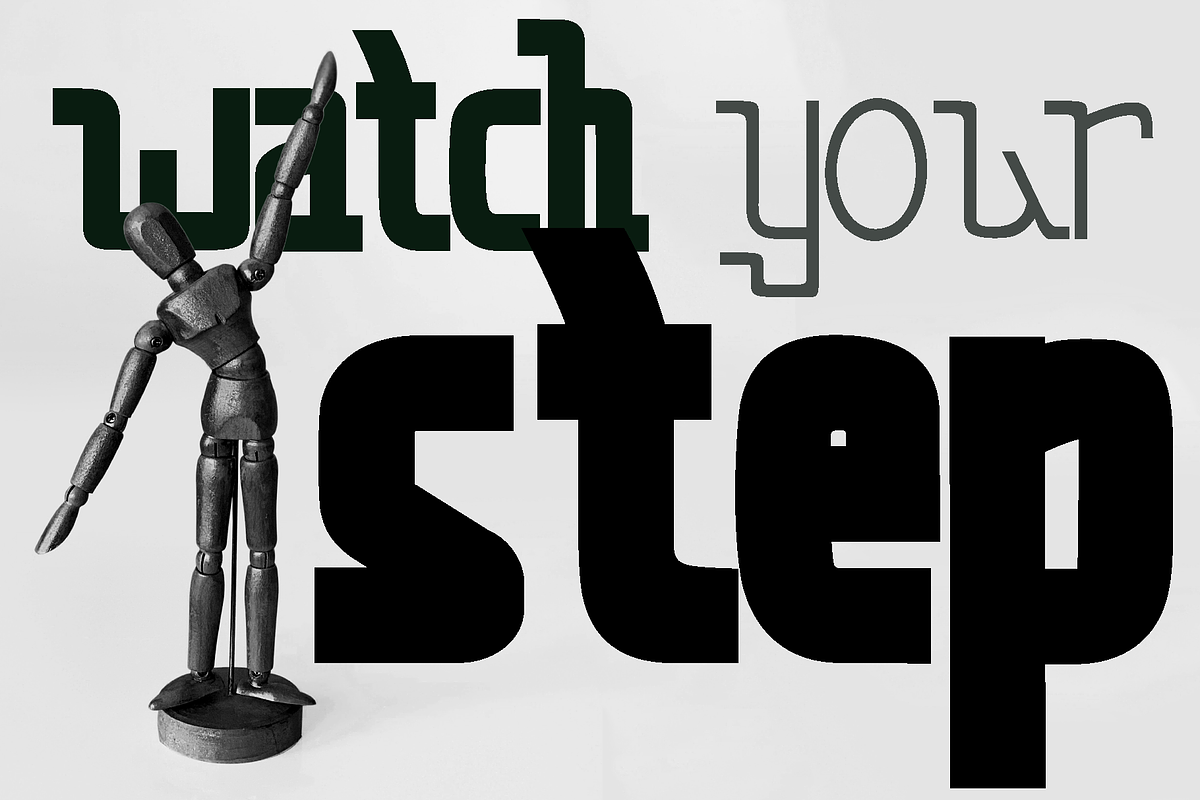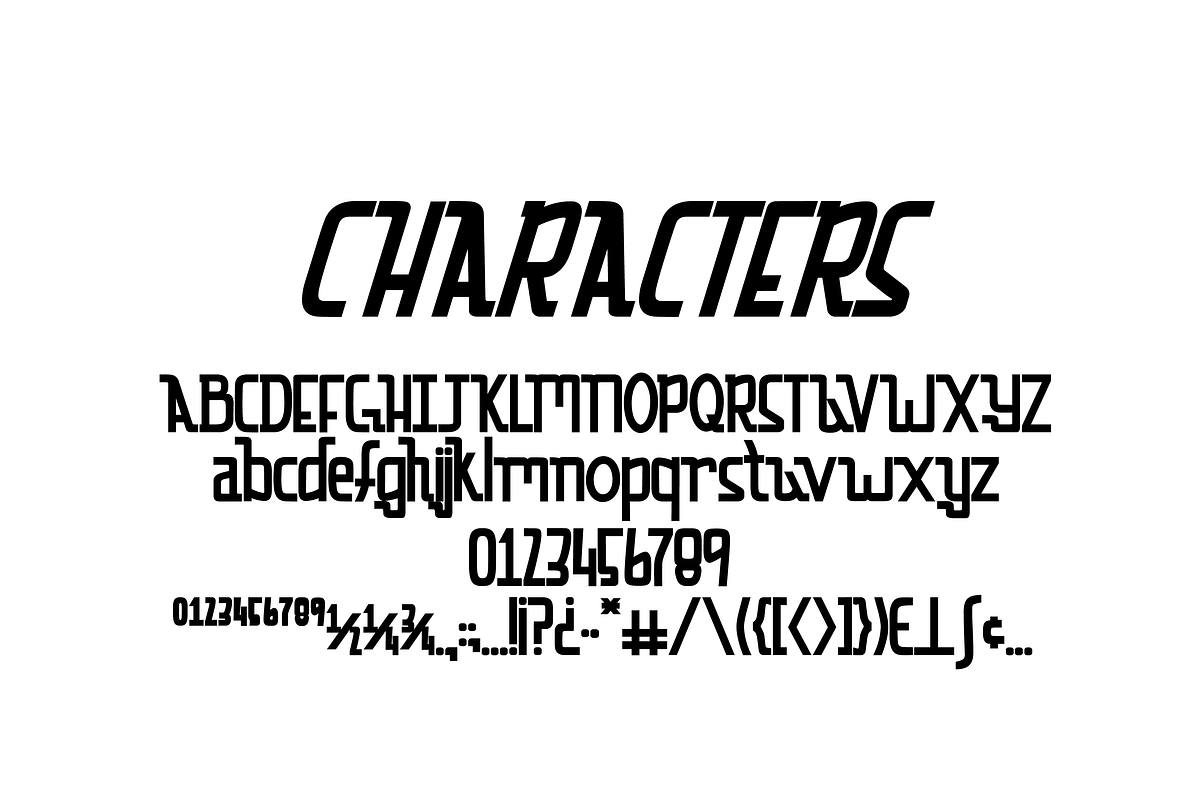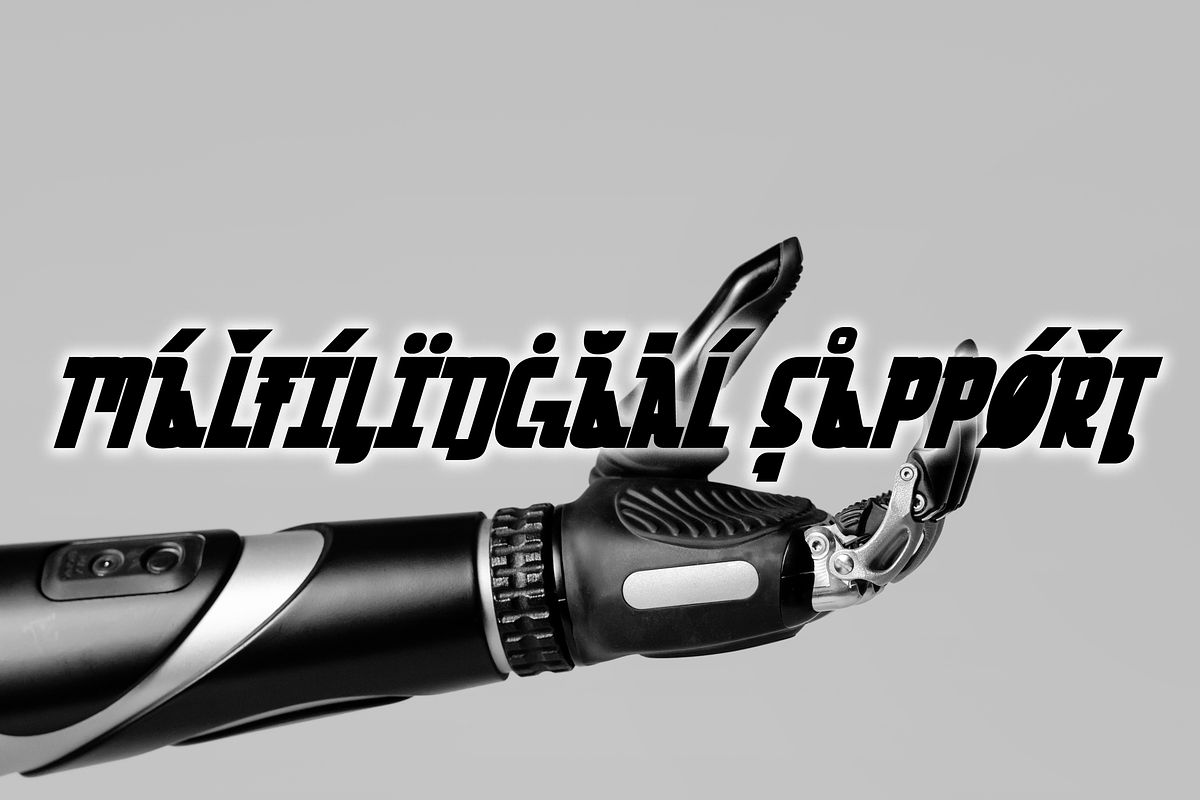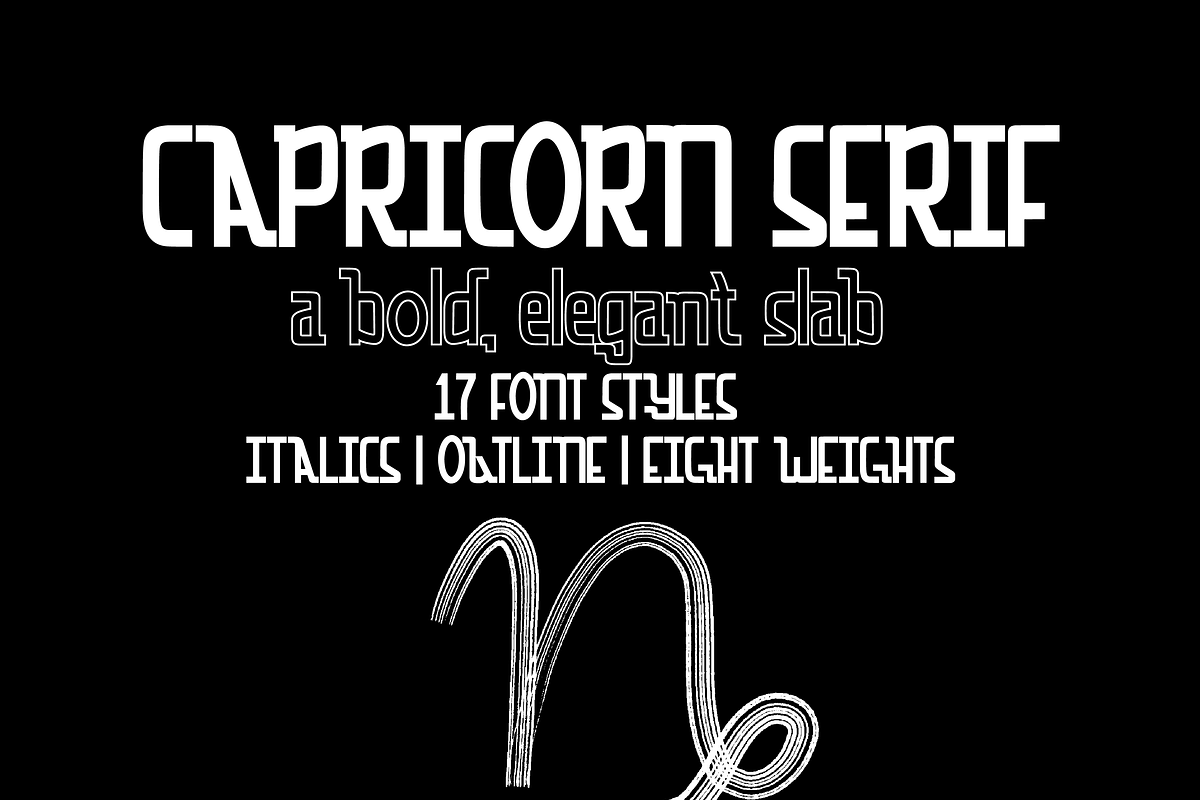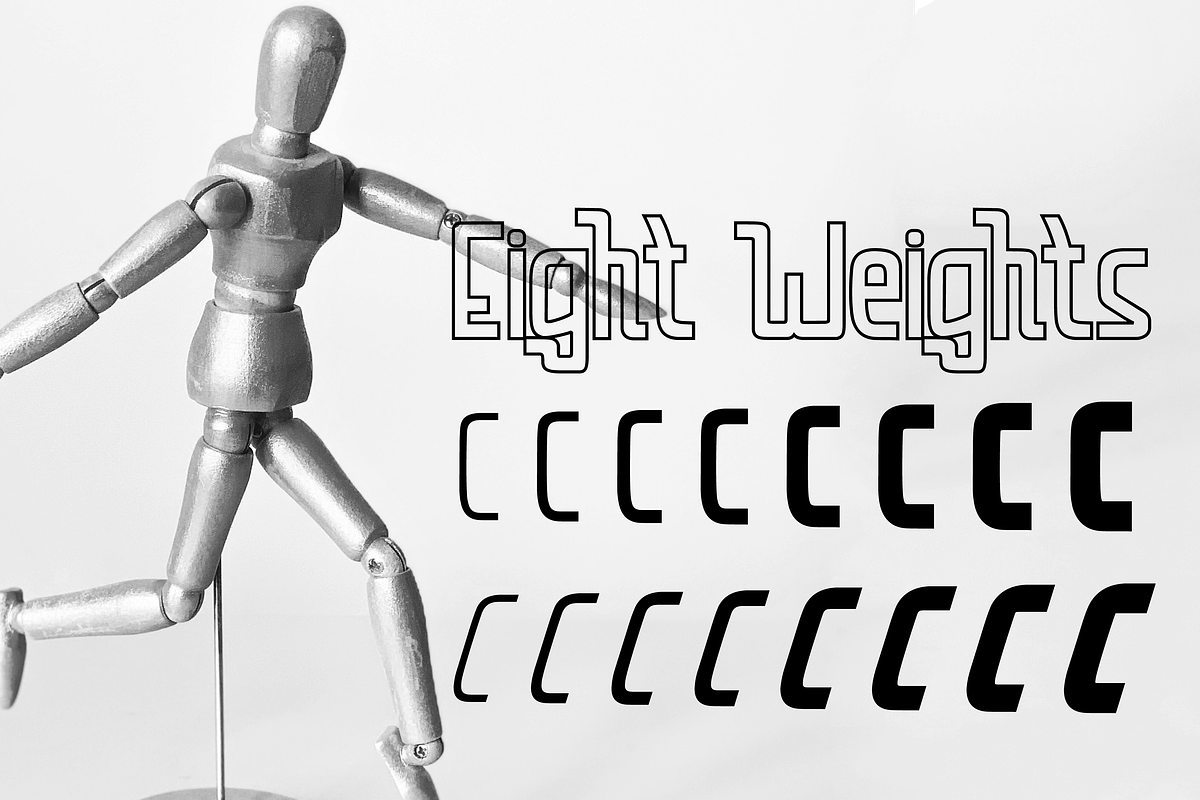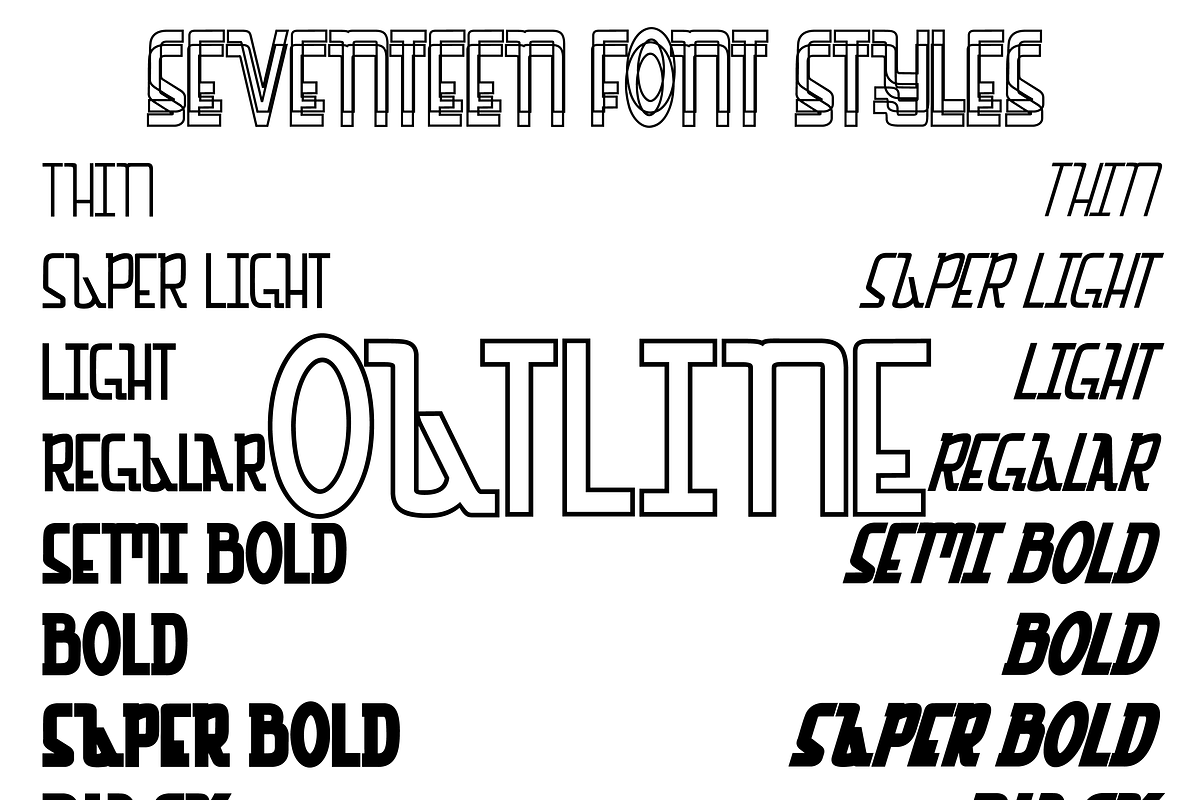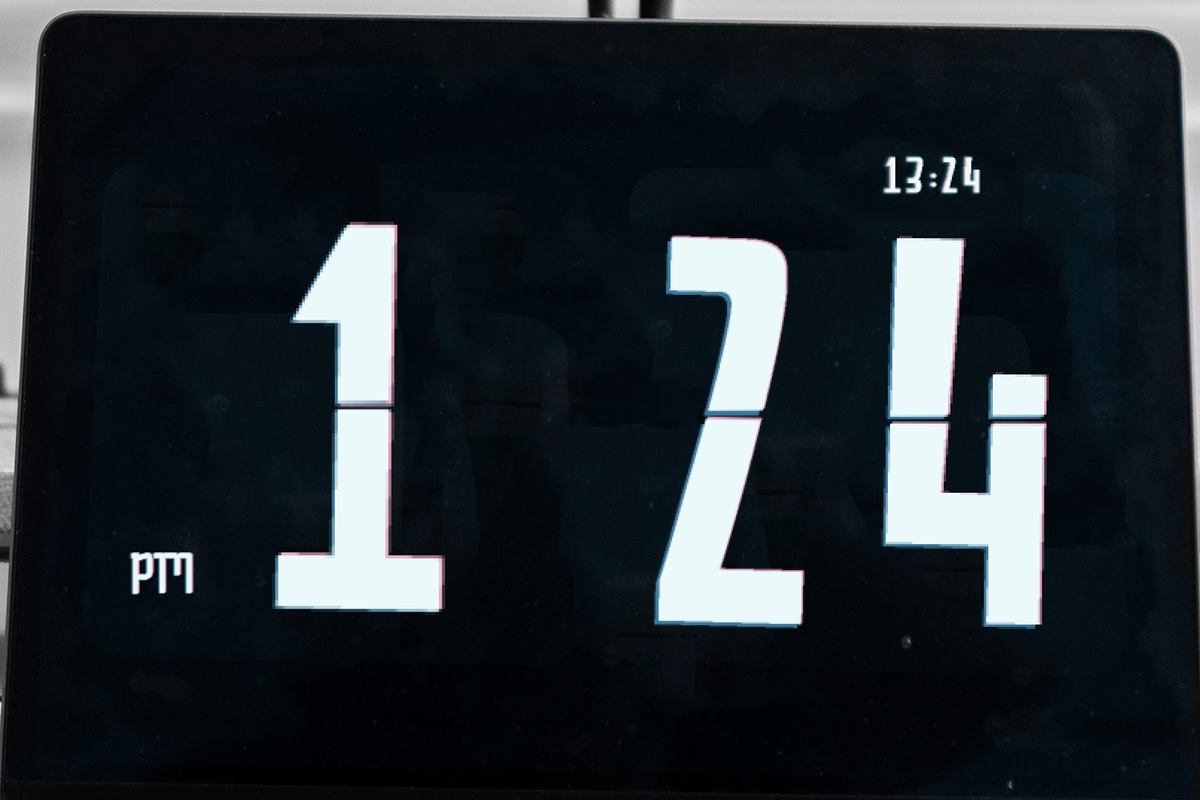
Capricorn Serif Typeface
Capricorn Slab Serif Typeface includes seventeen font styles.
This typeface comes in uppercase, lowercase, punctuations, numerals, symbols, web symbols, and multilingual support. Great for any titled or branded project.
The goal of this font was to embody the bold, elegant, and scientific aura of the Capricorn in one typeface. Anybody who needs this embodied in their work would do well to work with Capricorn Slab Serif.
Foreign Languages Support ¿ÀÁÂÃÄÅÆÇÈÉÊËÌÍÎÏÐÑÒÓÔÕÖרÙÚÛÜÝÞßàáâãäåæçèéêëìíîïðñòóôõö÷ø ùúûüýþÿĀāĂ㥹ĆćĈĉĊċČčĎďđĒēĔĕĖėĘęĚěĜĝĞğĠġĢģĤĥĦħĨĩĪīĬĭĭĮįİıijĴĵĶķĸĹĺĻļĽľĿŀŁłŃńŅņ ŇňʼnŊŋŌōŎŏŐőŒœŔŕŖŗŘřŚśŜŝŞşŠšŢţŤťŦŧŨũŪūŬŭŮůŰűŲųŴŶŷŸŹźŻżŽžˆˇ˘˙˚˜